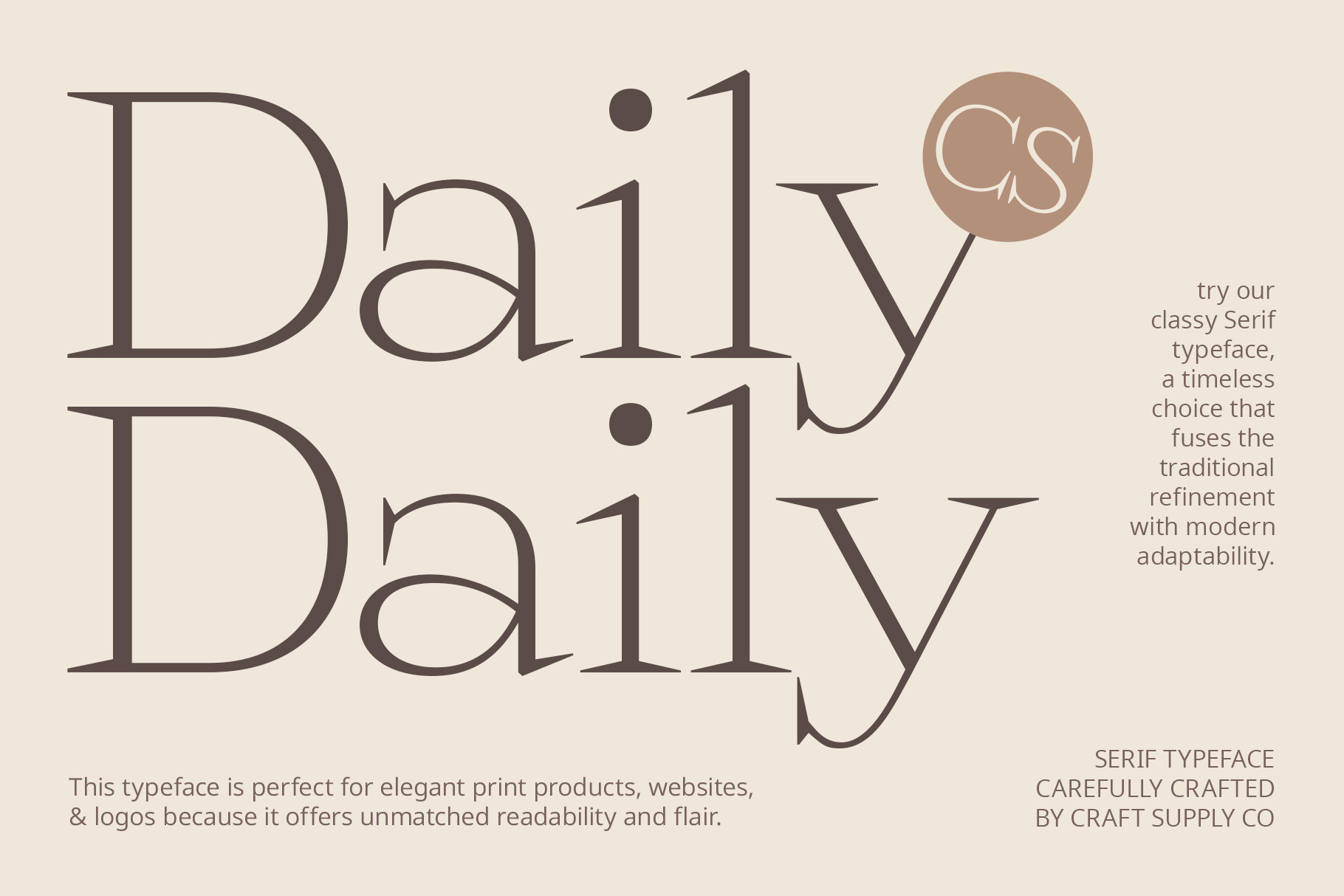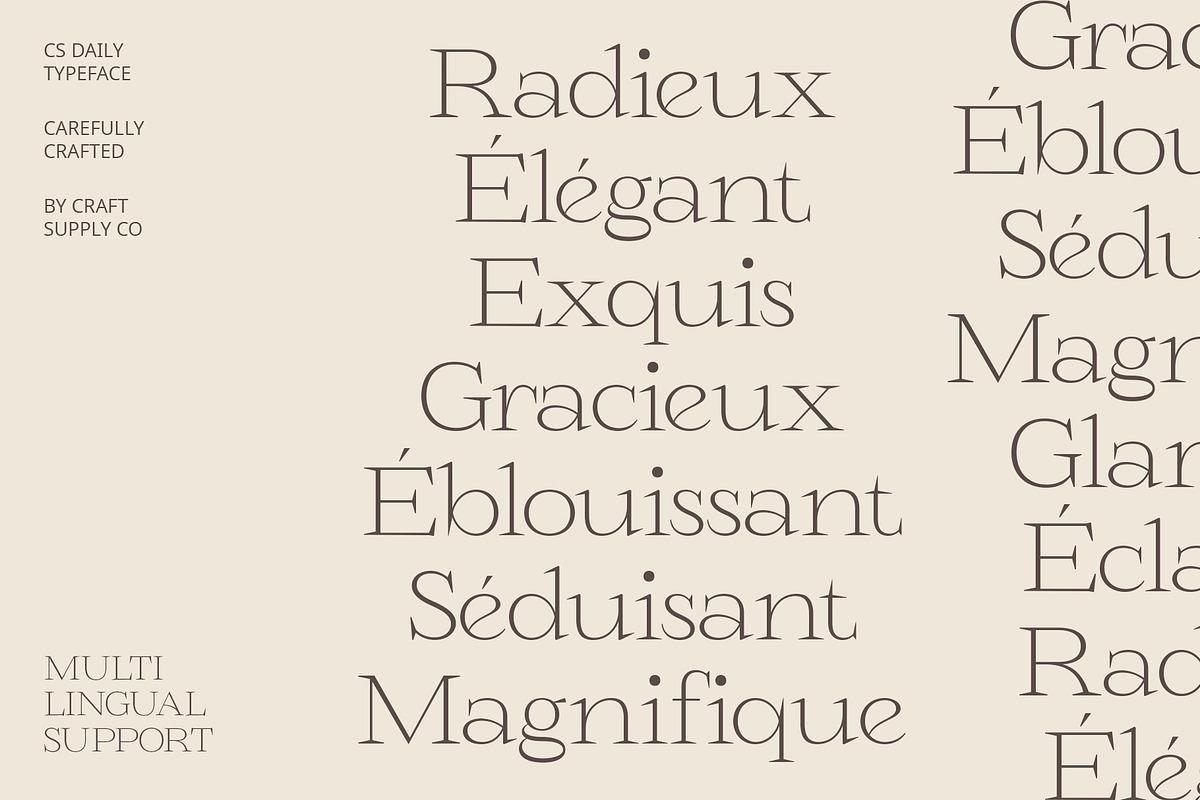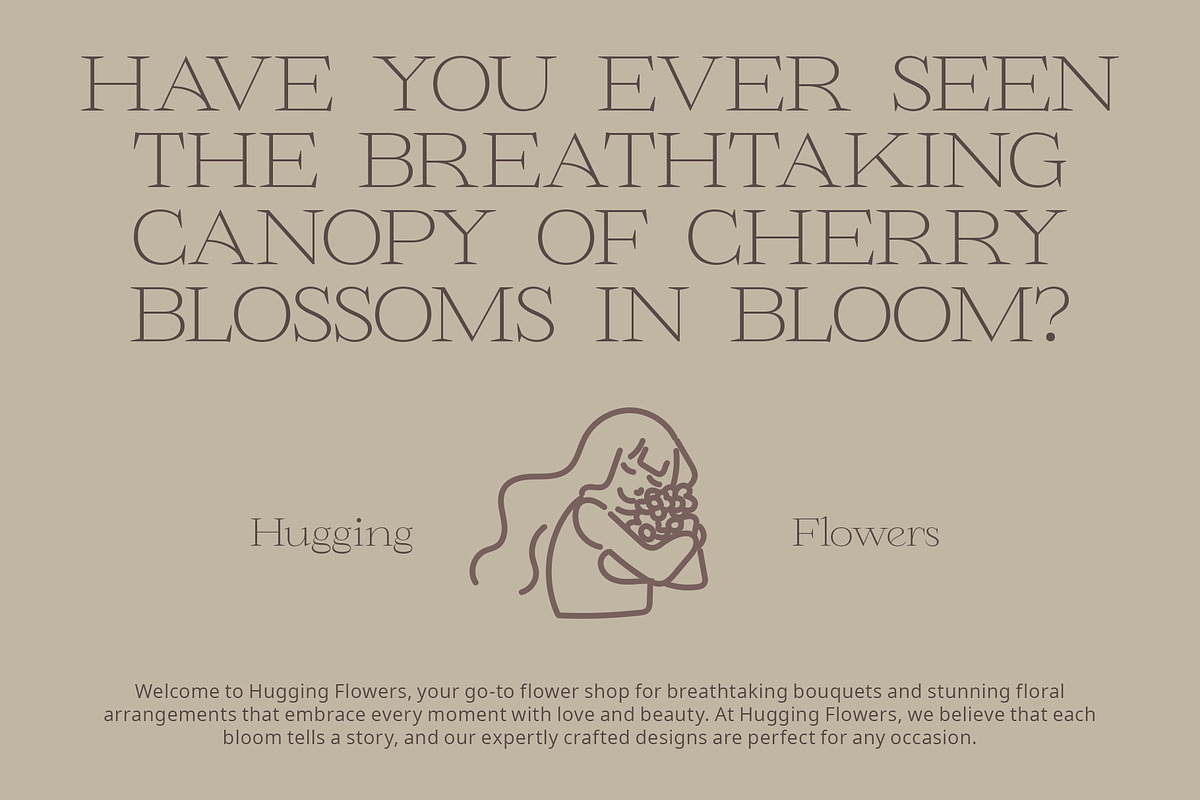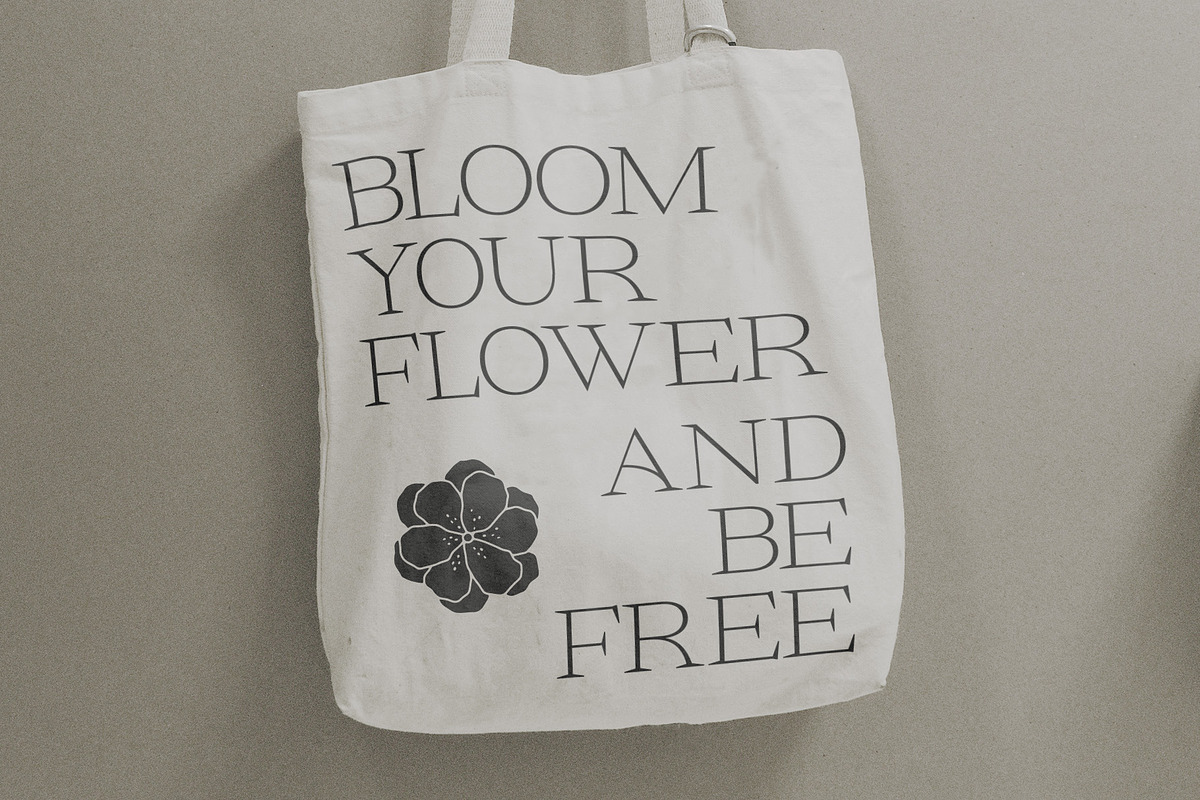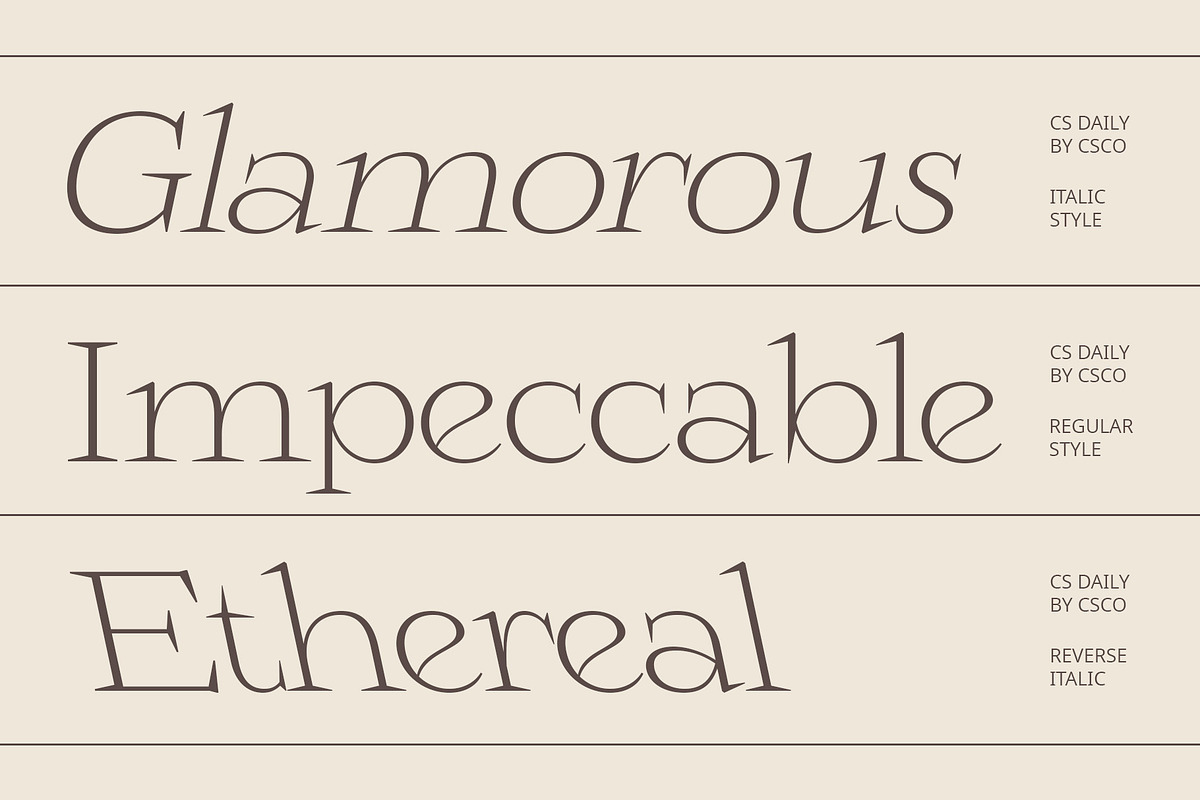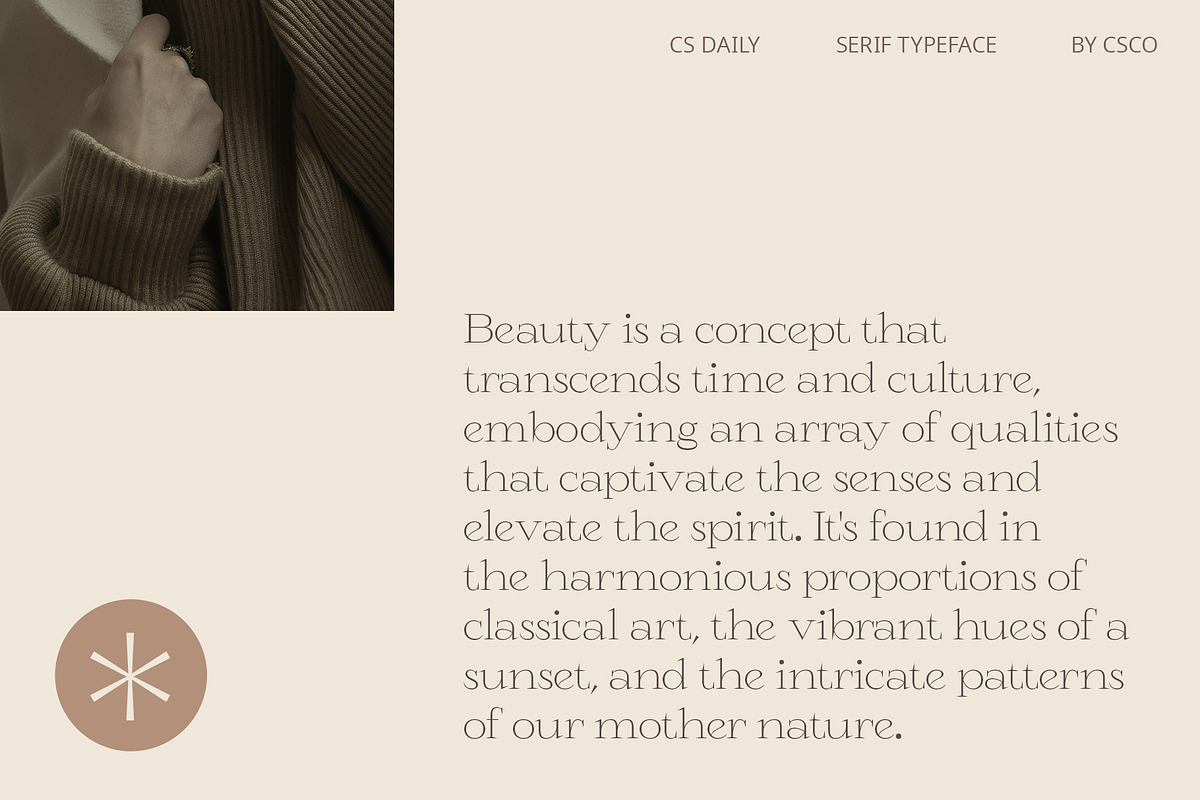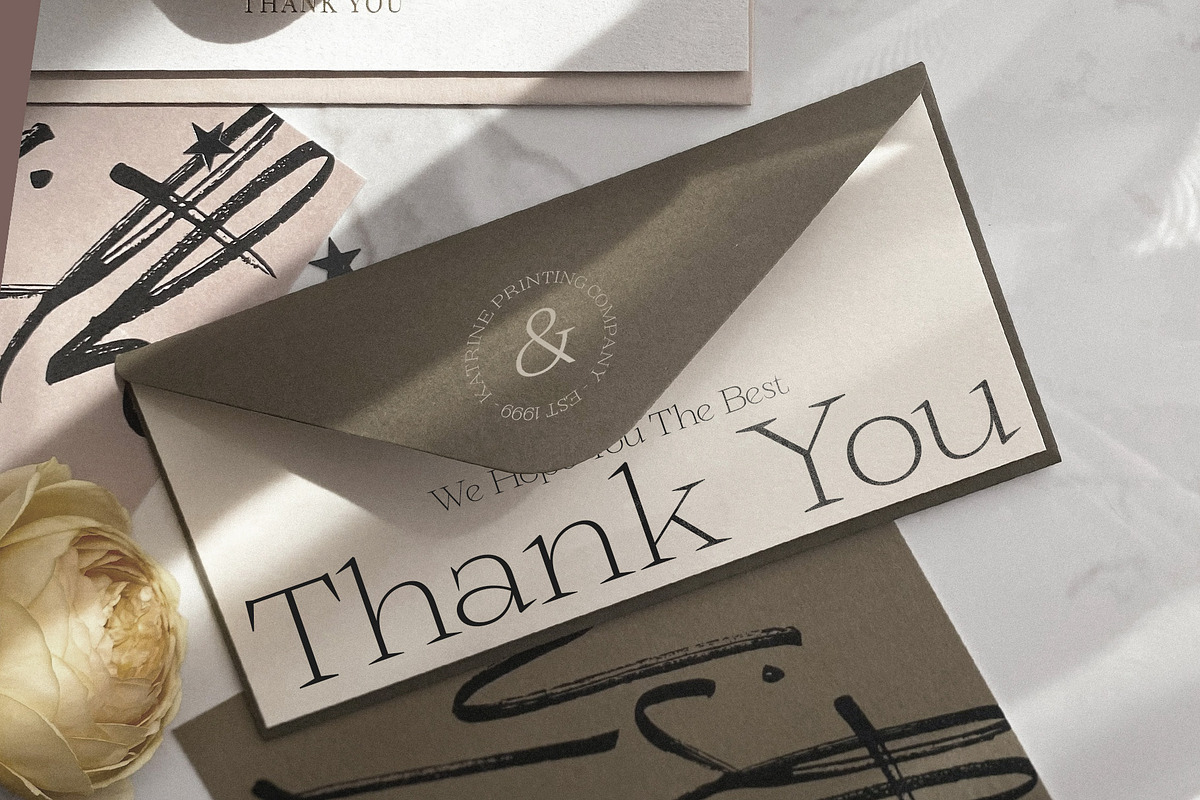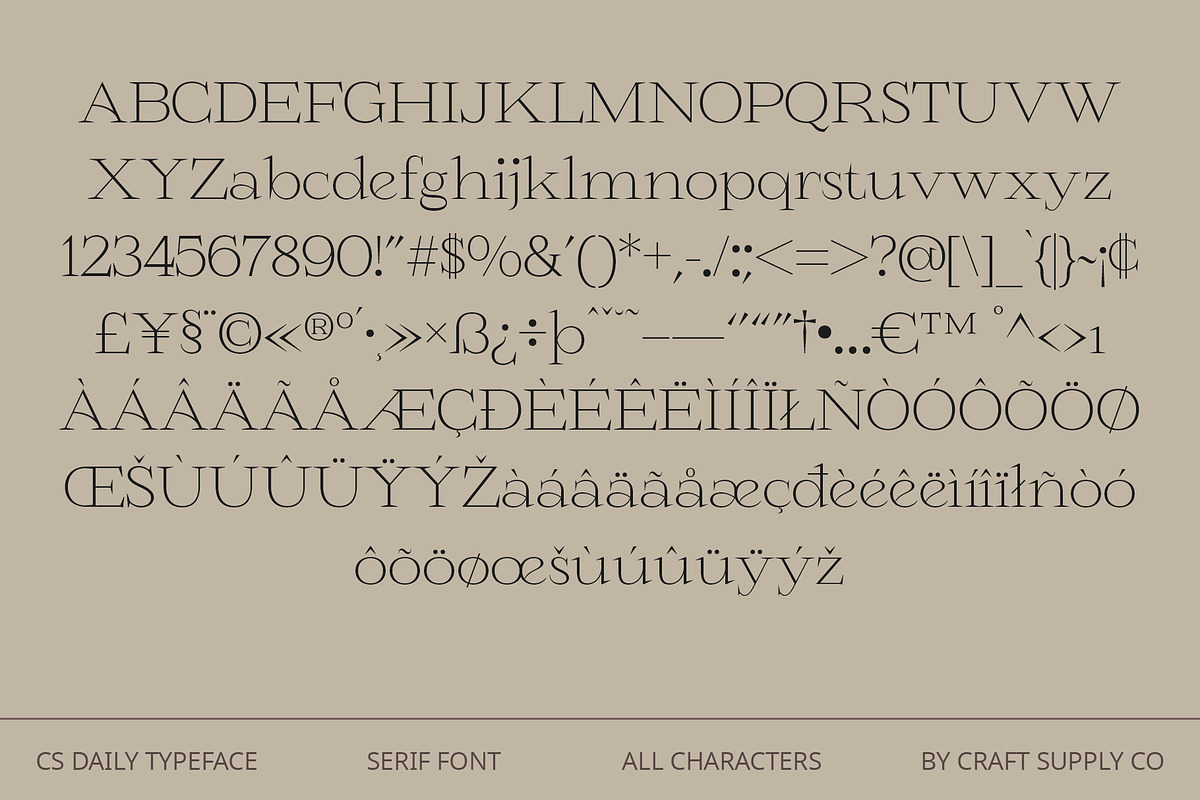
CS Daily – Serif Font
CS Daily – Serif Font: Modern Refinement with Elegant Grace
Modern Serif Font with Thin Strokes CS Daily is a modern serif font characterized by exceptionally thin strokes that deliver a refined and elegant aesthetic. The slender letterforms and delicate serifs combine to create a sophisticated appearance, making this font ideal for high-end branding and luxury editorial projects.
Sophisticated and Stylish Design The thin design of CS Daily enhances its contemporary charm while maintaining a graceful and stylish presence. Its delicate serifs and slender shapes provide a sense of sophistication and luxury, perfect for upscale marketing materials and elegant layouts.
Enhanced Readability with Graceful Elegance Despite its thin strokes, CS Daily ensures readability while exuding modern elegance. The font’s delicate design adds a touch of refinement to any project, making it a versatile choice for sophisticated branding, editorial work, and stylish promotional materials.
Ideal for High-End and Contemporary Projects CS Daily is well-suited for design projects that require a blend of modern elegance and classic refinement. Whether for luxury branding, high-end editorial designs, or chic marketing materials, this font brings a touch of contemporary sophistication to every application.
- CS Daily Regular
- CS Daily Italic
- CS Daily Reverse Italic